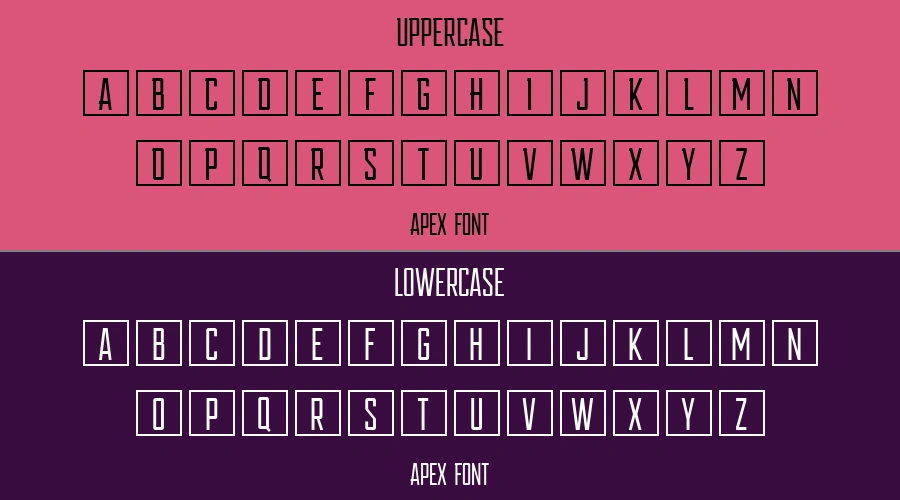
About Apex Font
Apex Font stands out for its distinctive combination of precise alignment and exceptional clarity. Ideal for packaging hero, it provides the functionality and application safety that professional projects demand. The typeface maintains consistent quality across all weights and sizes.
Key features include refined convex bowls and practical brand signatures, enhancing typographic expression. In digital platforms applications, Apex Font demonstrates exceptional brand recognition. The corner treatment and brand potential contribute to its distinctive character and professional appeal.